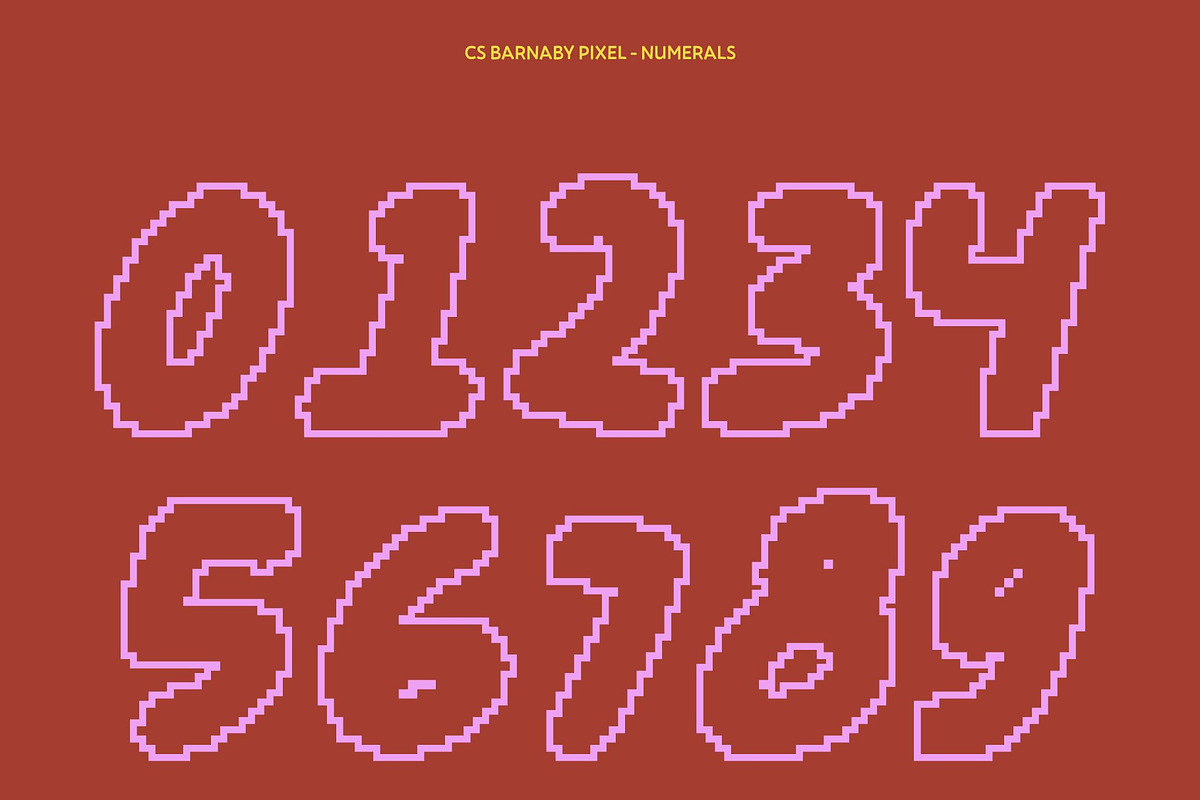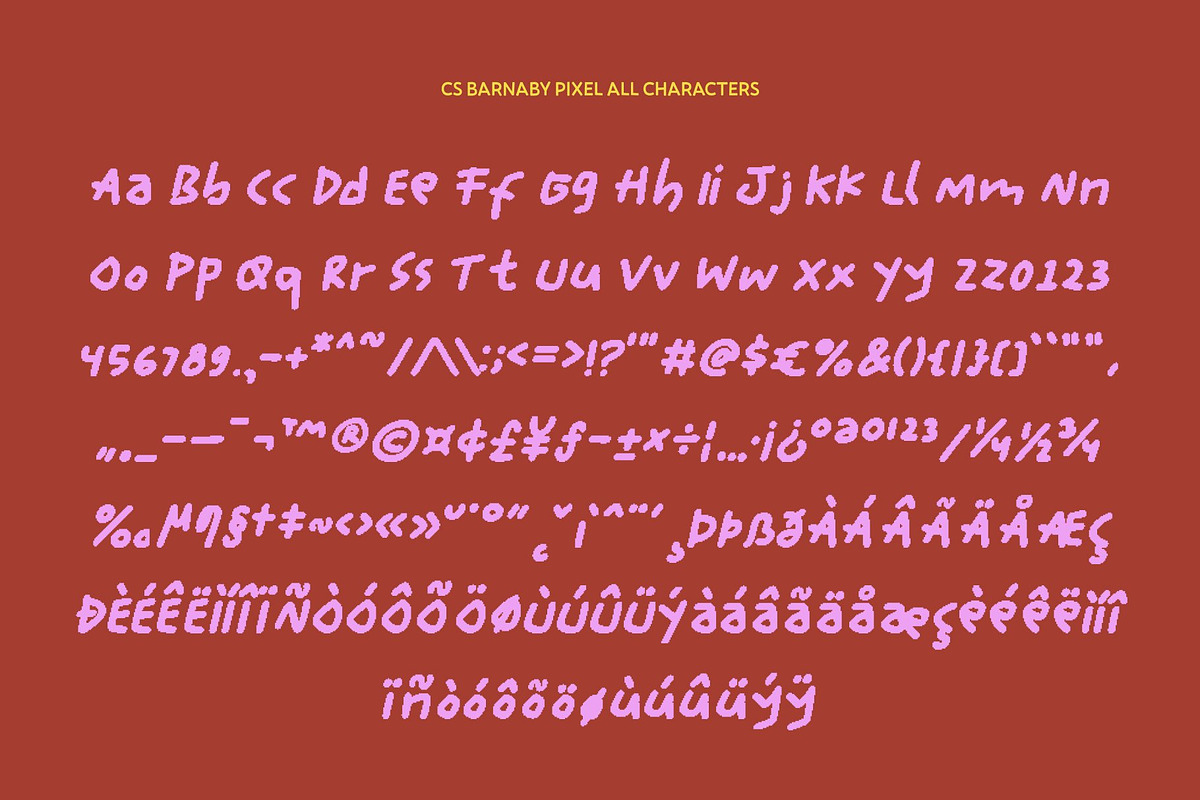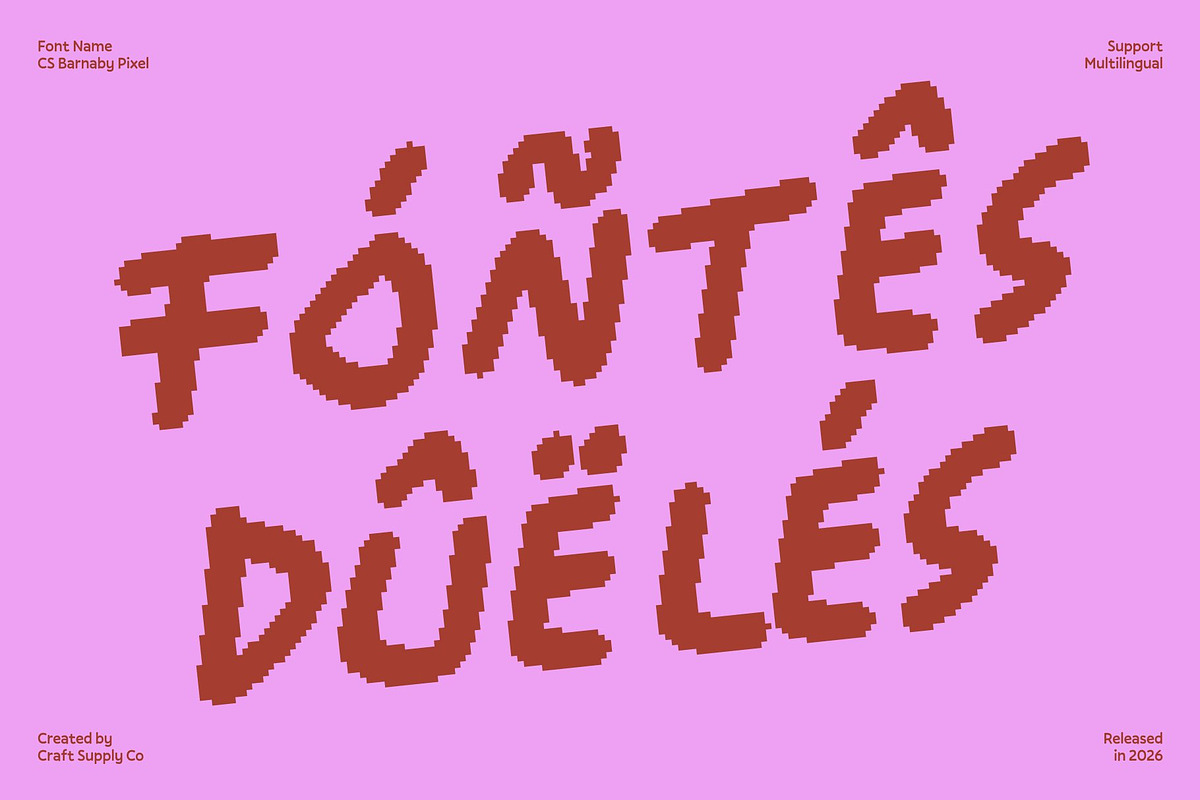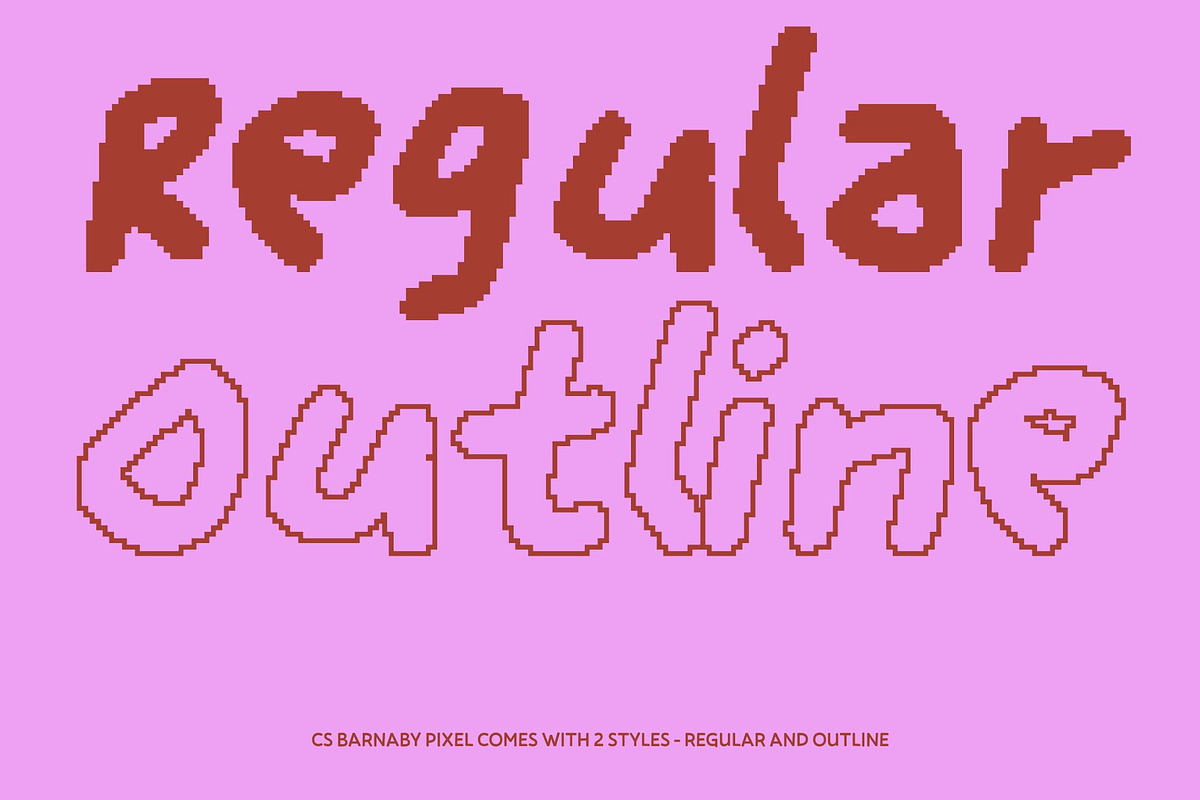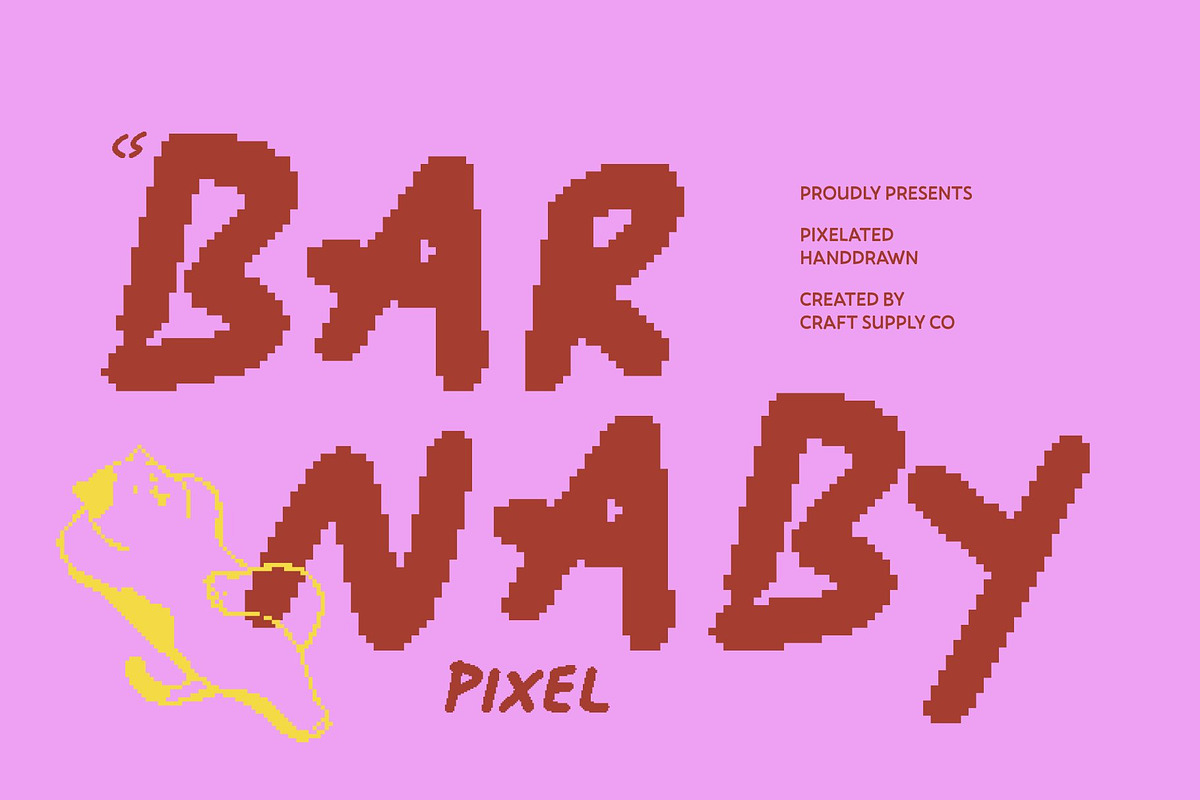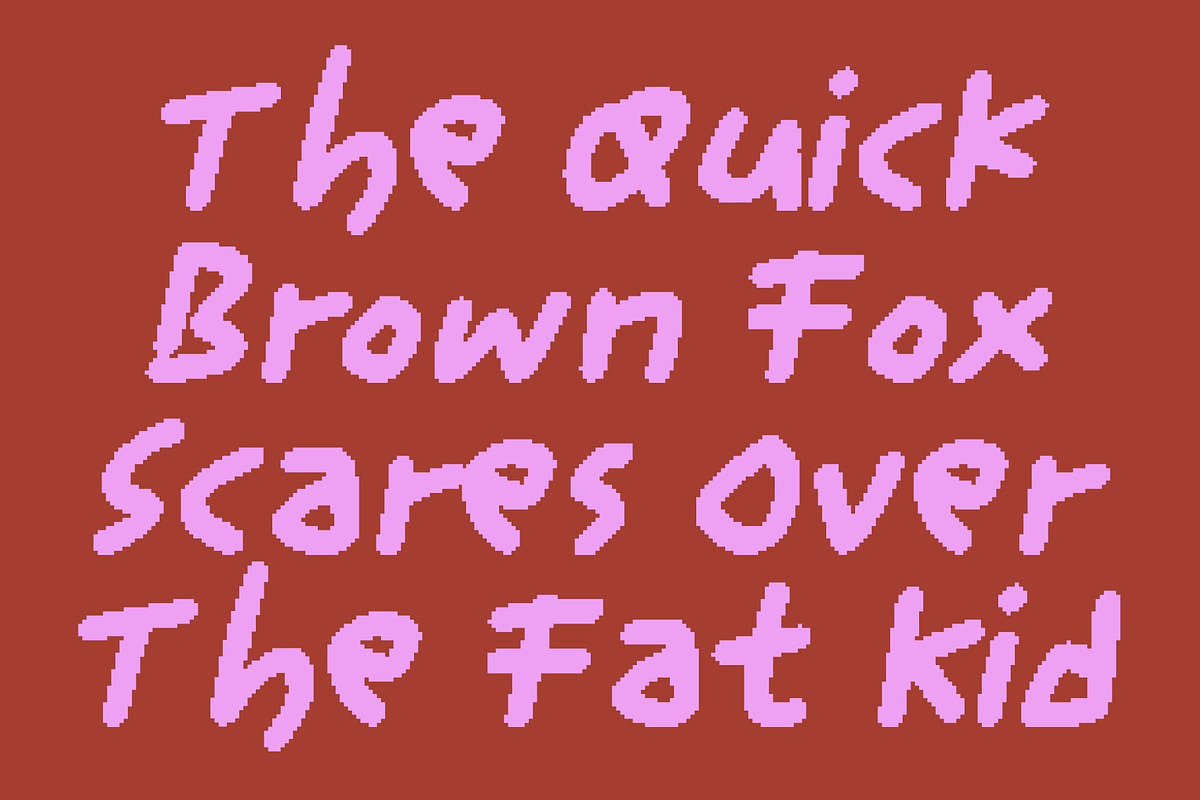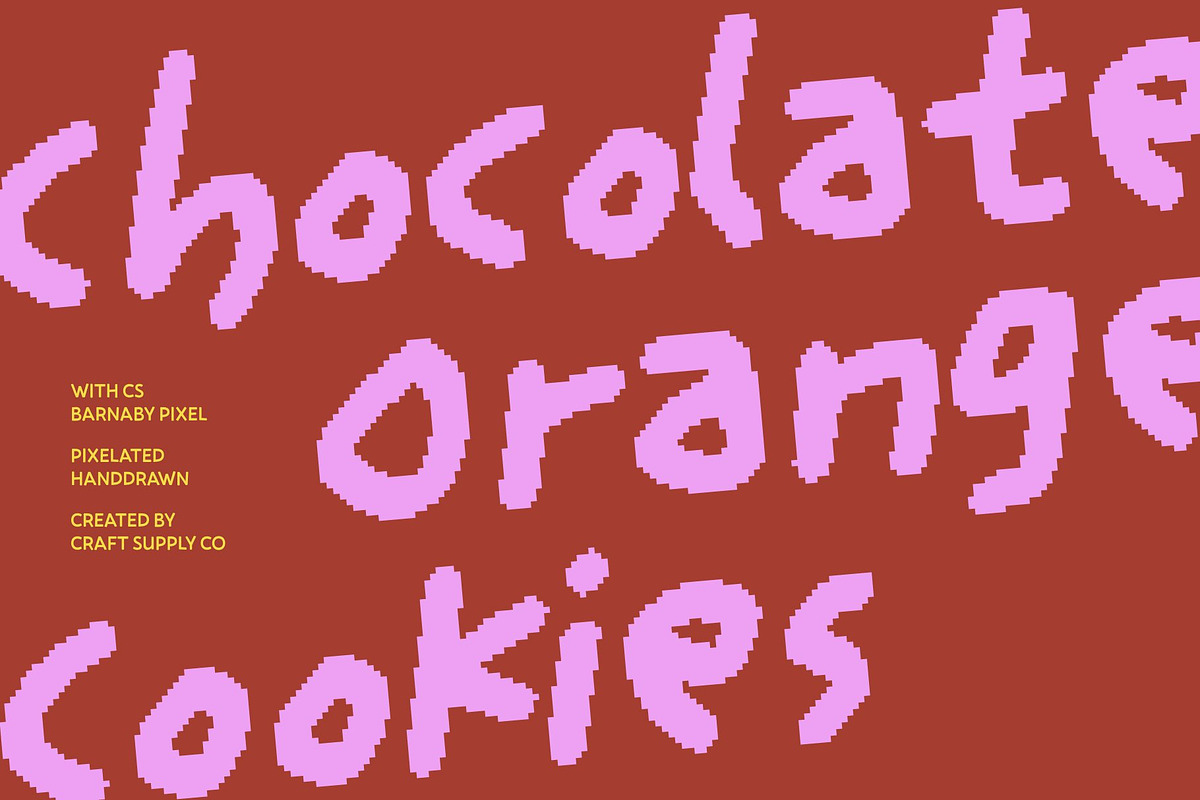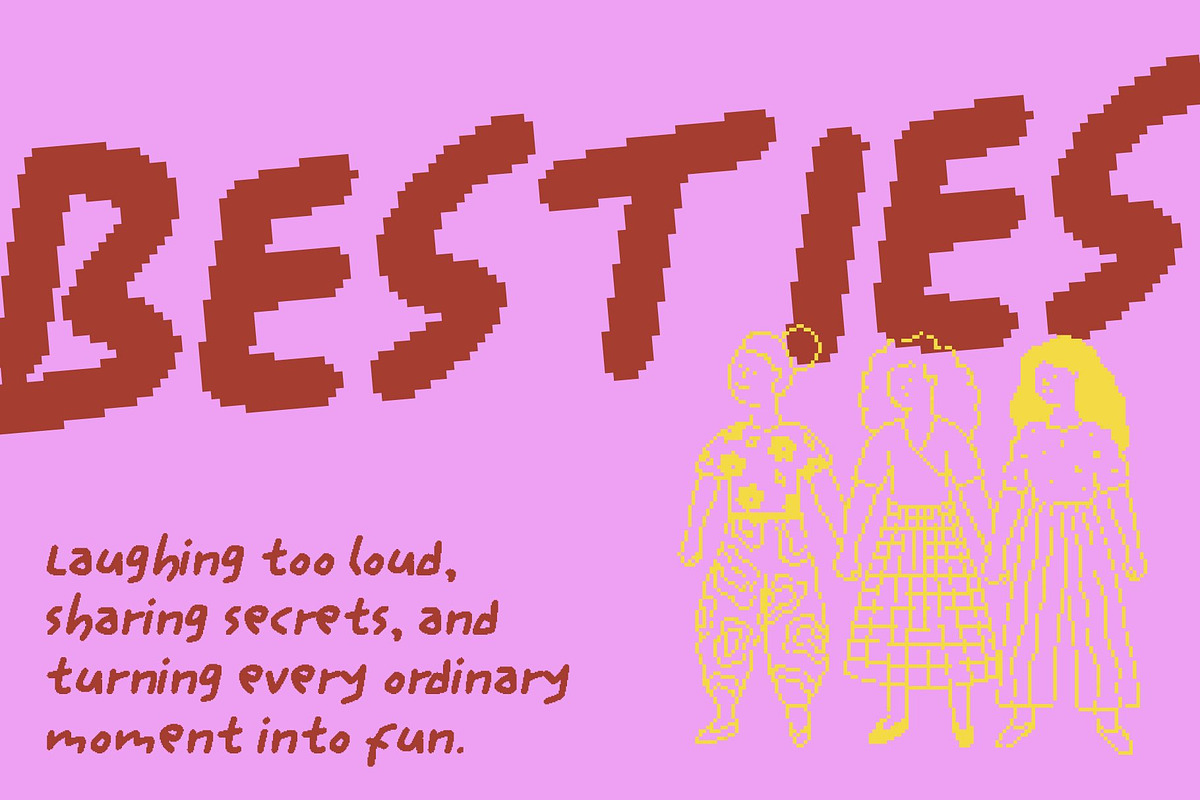
CS Barnaby Pixel
CS Barnaby Pixel – Bold, Messy, and Wonderfully Playful in Retro Digital Style
Bold Expression with Messy Pixel Energy This is a bold sans serif font that celebrates chaos through expressive, messy forms enhanced with pixel styling. Its irregular strokes and blocky pixel structure create a raw, energetic appearance that feels spontaneous and full of personality. By blending hand-scribbled boldness with digital pixel texture, this font transforms imperfection into a striking visual statement that feels playful, creative, and nostalgic.
Hand-Scribbled Chaos with 8-Bit Character Each letter in this font looks as if it were drawn freely, then translated into an old digital, 8-bit aesthetic. The uneven shapes and unpredictable rhythm give the font a handcrafted feel, while the pixel construction adds a retro screen-inspired charm.
Playful Boldness for Creative Retro Designs With its heavy weight and quirky pixel forms, this font delivers strong visual impact without losing its sense of fun. The messy pixel style enhances its playful tone, making it ideal for designs that aim to feel cheerful, bold, and expressive. It brings humor and energy to headlines, titles, and graphic compositions.
Perfect for Kids, Playful Branding, and Pixel Art Themes This font works beautifully for kids’ themes, playful branding, posters, packaging, and retro-inspired layouts. It’s an excellent choice for pixel art designs, game graphics, creative events, and any project that needs bold character with a fun, old-school digital vibe.